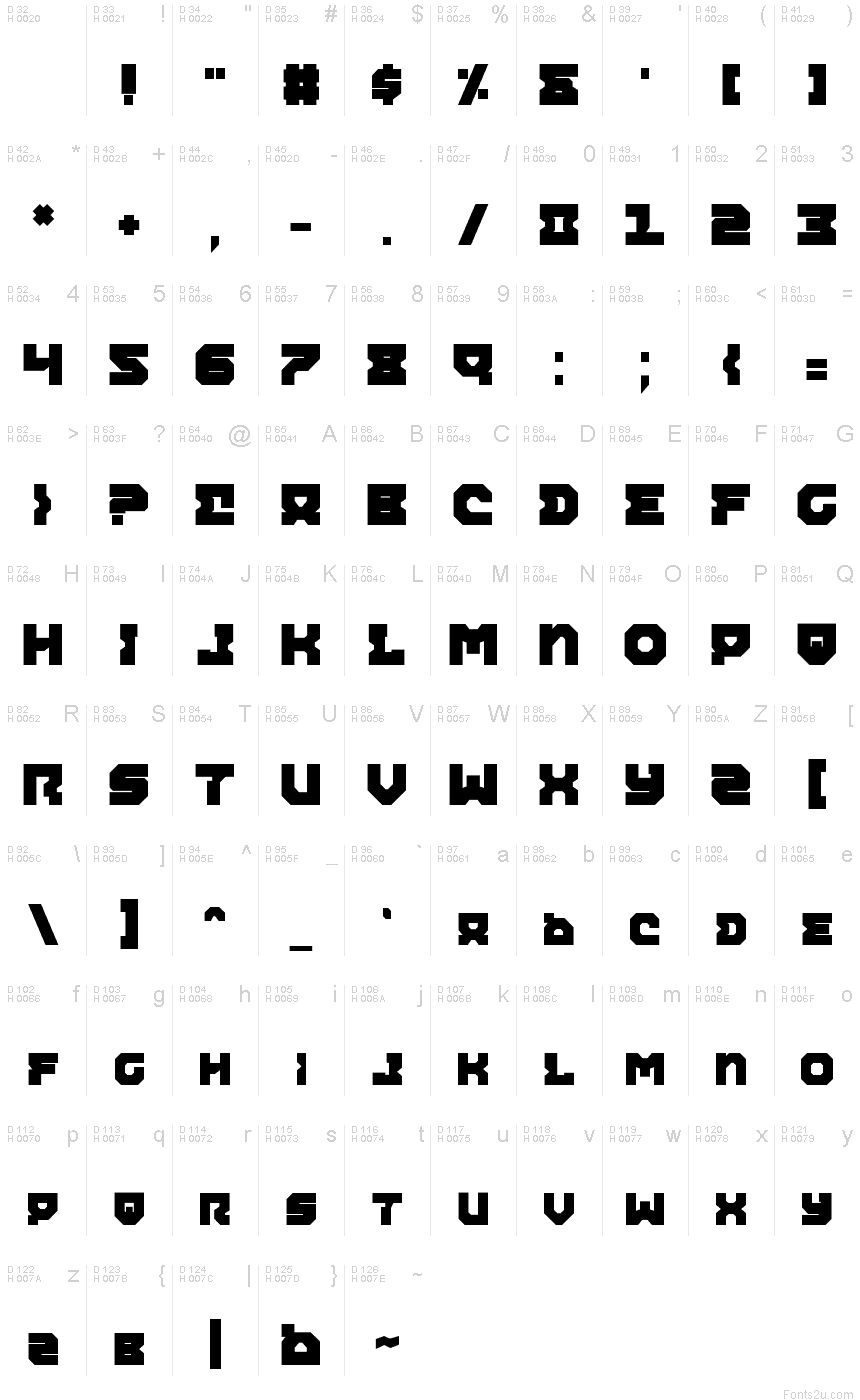
Airacobra Extra Bold
Airacobra Extra Bold font by Iconian Fonts is a free techno display typeface in the Airacobra family that looks ripped straight from a starship hull. Its squared-off silhouettes, beveled corners, and chunky, locked-together rhythm create a dense, armored texture that feels both futuristic and industrial. The geometric cutouts inside each form add a crisp glow effect, as if the letters were panels punched out of metal plating.
Using Airacobra Extra Bold, you get instant sci-fi attitude for game titles, eSports branding, mech or cyberpunk posters, movie key art, tech YouTube graphics, and bold event logos. This free font thrives at large sizes where its faceted shapes can really show off; keep body text in a clean sans like a thin geometric companion for menus, subtitles, or UI labels.